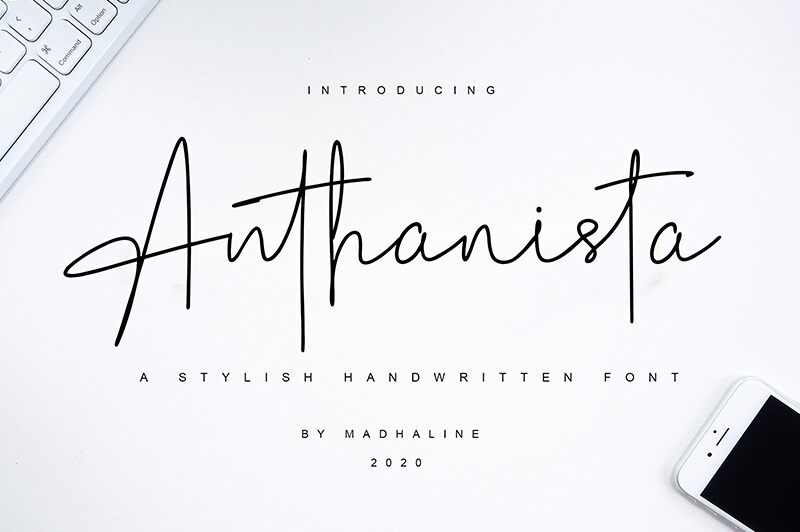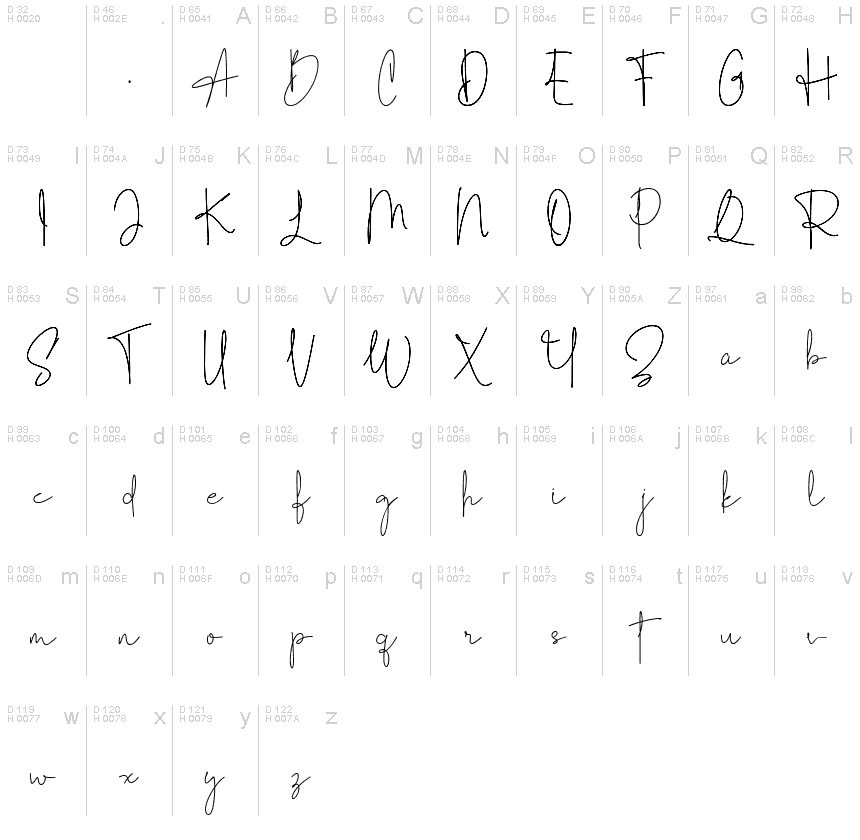
Anthanista
Introducing Anthanista, a stylish signature font designed by Madhaline Studio. With its thin weight, Anthanista is perfect for creating elegant wedding invitations, eye-catching logos and unique monograms. It also works great for advertising campaigns and social media posts.